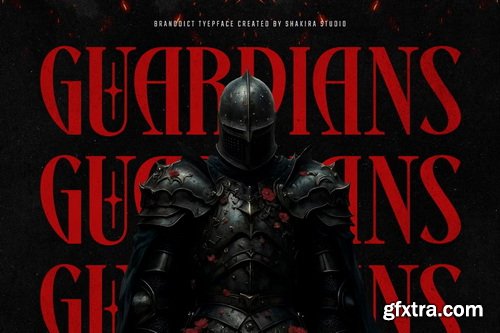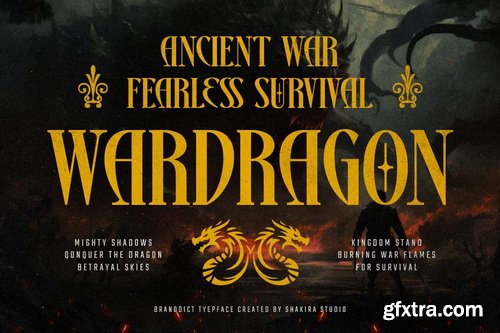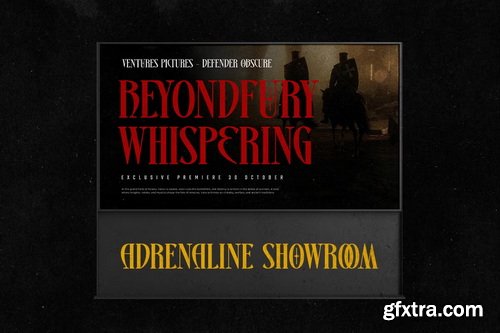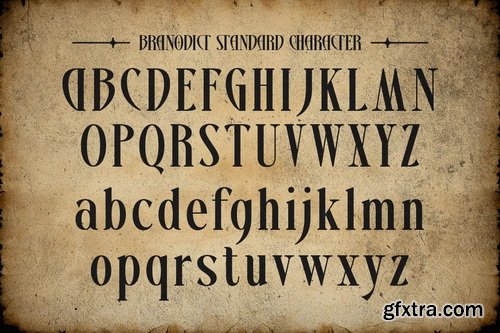
CreativeMarket - Branodict - Modern Display Serif
Branodict is a commanding display serif that merges contemporary sharpness with classic elegance. Featuring both regular and italic versions with premium alternates and ligatures, this typeface is engineered to create striking logos, memorable branding, and sophisticated packaging designs. With its bold serif structure and refined italic variant, Branodict delivers unmatched versatility for brands seeking both authority and prestige. The carefully crafted alternates and ligatures enable distinctive wordmark creation with perfect typographic harmony.